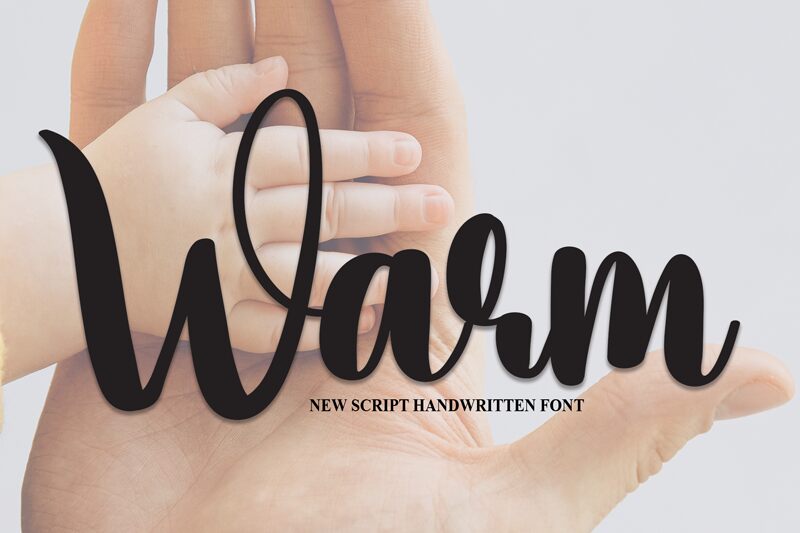
Warm
Warm, crafted by Scratchones, stands out as a bold handwritten font that exudes a personal and inviting atmosphere. Its well-weighted characters boast a fluidity that mimics the natural variations of handwriting, lending it an authentic and approachable feel. The aesthetic appeal lies in its seamless blend of casual charm and robust presence, making it exceptionally versatile for an array of creative projects.
Whether it's to add a touch of personality to branding materials, to convey heartfelt messages in greetings cards, or to enhance editorial designs with its distinctive style, Warm is tailor-made for instances where a touch of human warmth is desired. Its potential to elevate design work with its stylized yet readable form makes it ideal for designers looking to inject sincerity and character into their visual narratives.